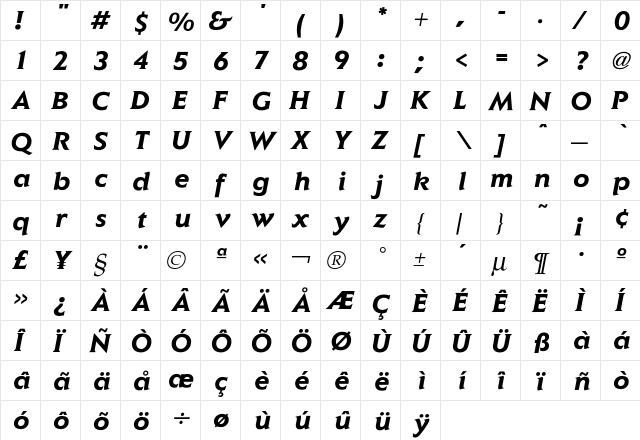
Elan BoldItalic
Design Context for Elan Typeface
Elan offers clean, dependable letterforms without strong stylistic allegiance, making it a practical choice for designers who need flexibility. The slanted form adds forward momentum and visual energy. Its bold stroke weight gives it real presence on the page.
Pro Tip: Try Elan for annotation and caption copy alongside an upright companion — the contrast in angle creates a dynamic but ordered typographic system.